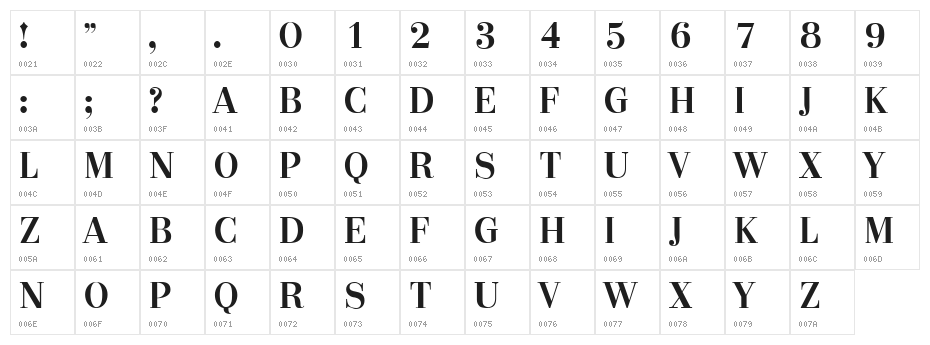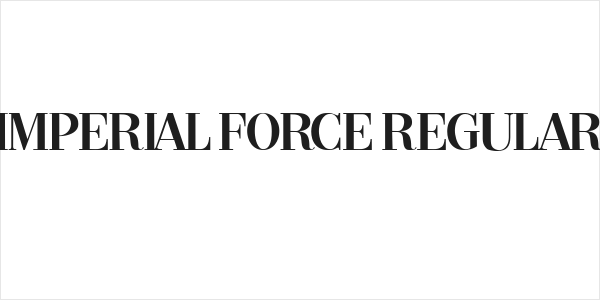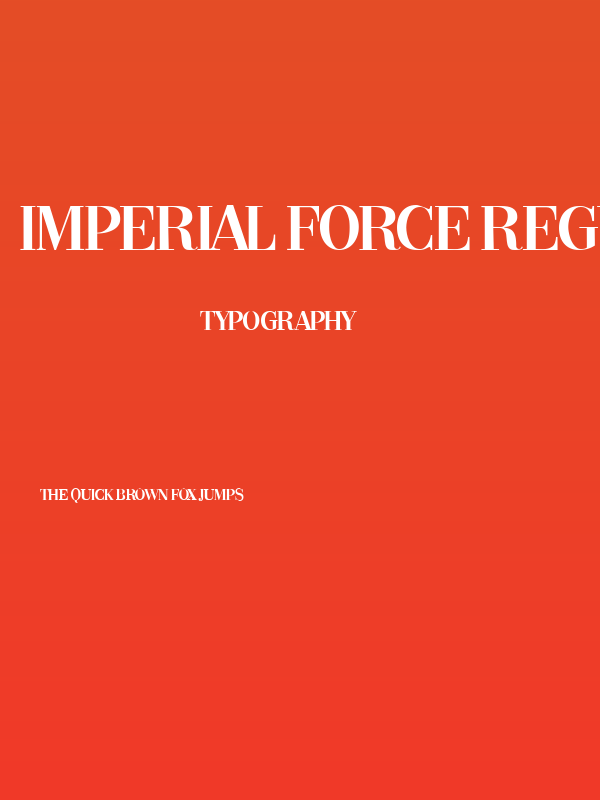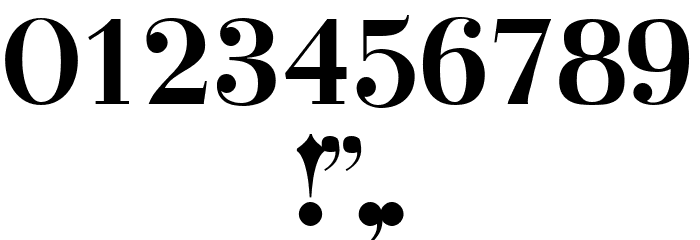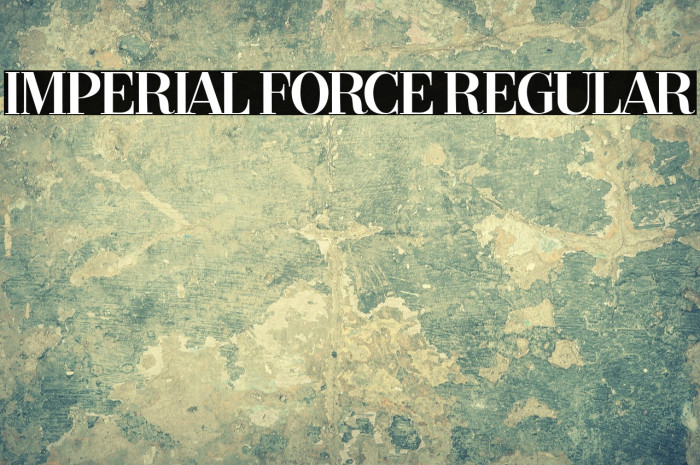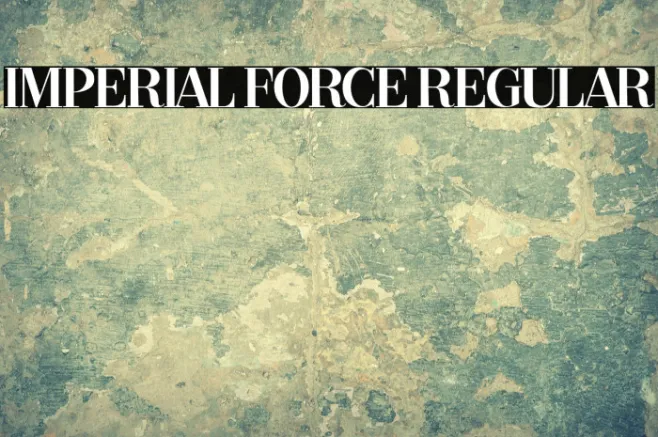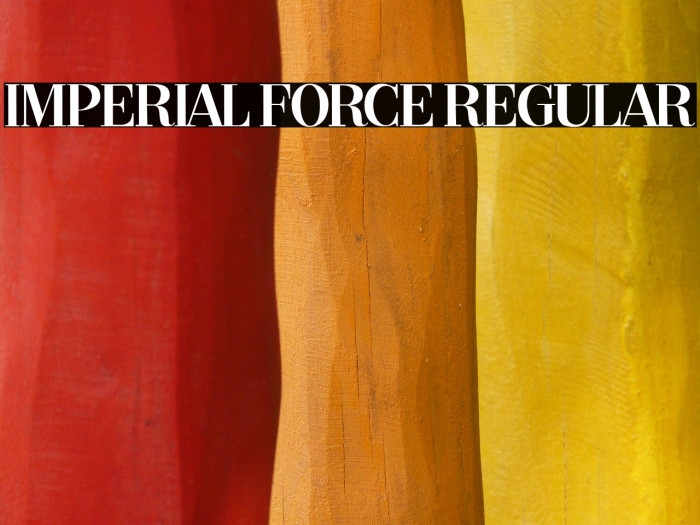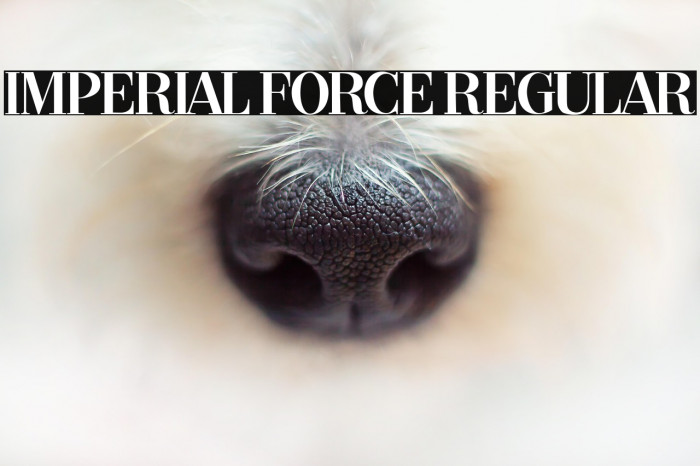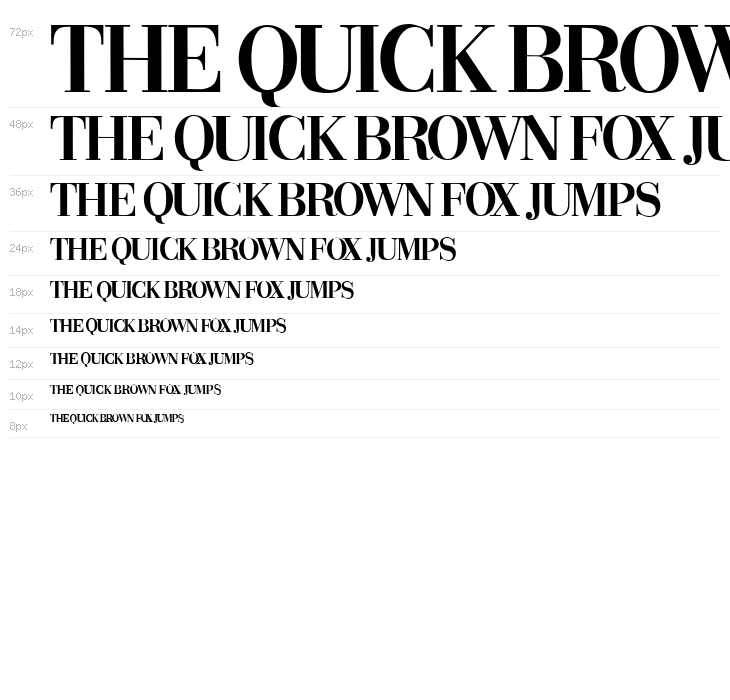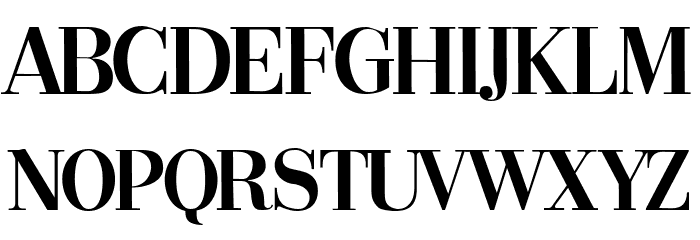
Imperial Force Regular Font
Imperial Force Regular Description
This font exudes a strong, authoritative presence with its bold and commanding serif style. The characters are sharply defined, featuring thick vertical strokes and fine horizontal lines, creating a high contrast that enhances readability and impact. The serifs are pronounced, adding a touch of elegance and tradition to the overall design. This font is well-suited for making a statement, whether in print or digital formats. Its classic yet modern appeal makes it versatile for various applications, from formal documents to eye-catching headlines.
| Use Case | Headlines, Logos, Editorial design |
| Proposed Projects | Ideal for use in branding, editorial design, book covers, and formal invitations. |